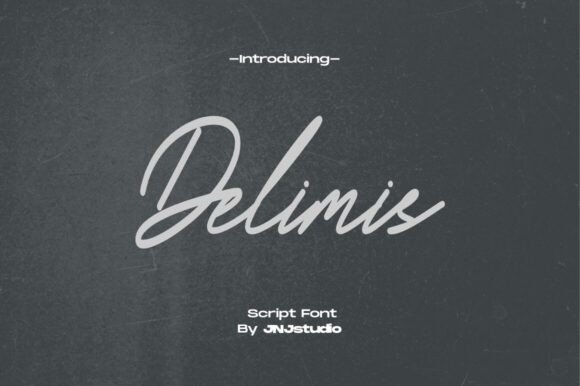
The Art of Personal Touch: Introducing Delimis Font
Have you ever sat down with a pen and paper, trying to perfect your signature? The way the pen glides across the page, the flow of the letters, the personal touch that makes it uniquely yours? That’s the magic of handwriting, and it’s exactly what inspired the creation of the Delimis Font.
Delimis Font is a stunning handwritten signature font that captures the essence of a signature, adding a personal and authentic touch to any design. Its elegant and sophisticated style makes it perfect for personal branding, wedding invitations, and luxury packaging. With its fluid strokes, delicate curves, and varying line thickness, Delimis Font is a game-changer for designers looking to add a touch of sophistication to their work.
Whether you’re a graphic designer, a marketing expert, or a creative entrepreneur, Delimis Font is a valuable addition to your toolkit. Its versatility and classic charm make it perfect for both formal and creative projects, allowing you to add a personal touch that sets you apart from the rest.
Delimis Font Key Features
- Unique Character Set: Delimis Font features a unique set of characters, including alternative glyphs and ligatures, making it ideal for creative and editorial projects.
Delimis Font Review
Delimis Font is a beautiful, modern script font that can add a touch of elegance to any design project. Here are some of its standout features:
- ✨ Elegant and refined lines that make it perfect for branding, invitations, and wedding designs.
- ✨ Great for creating a sense of sophistication and luxury in your designs.
- ⚠️ Delimis Font may not be suitable for projects that require a more playful or casual tone.
- ⚠️ Some users may find the font to be a bit too ornate or over-the-top for certain designs.
- ⚠️ The font may not be as versatile as some other script fonts on the market.
Overall, I would give Delimis Font 4 out of 5 stars. It’s a beautiful font that can add a touch of sophistication to your designs, but it may not be the best choice for every project. With some careful consideration of its limitations, Delimis Font can be a valuable addition to any designer’s toolkit.
The Delimis Font is ideal for:
- Creating elegant and sophisticated designs.
- Adding a touch of luxury to your branding materials.
- Designing wedding invitations, menus, or other special occasion materials.